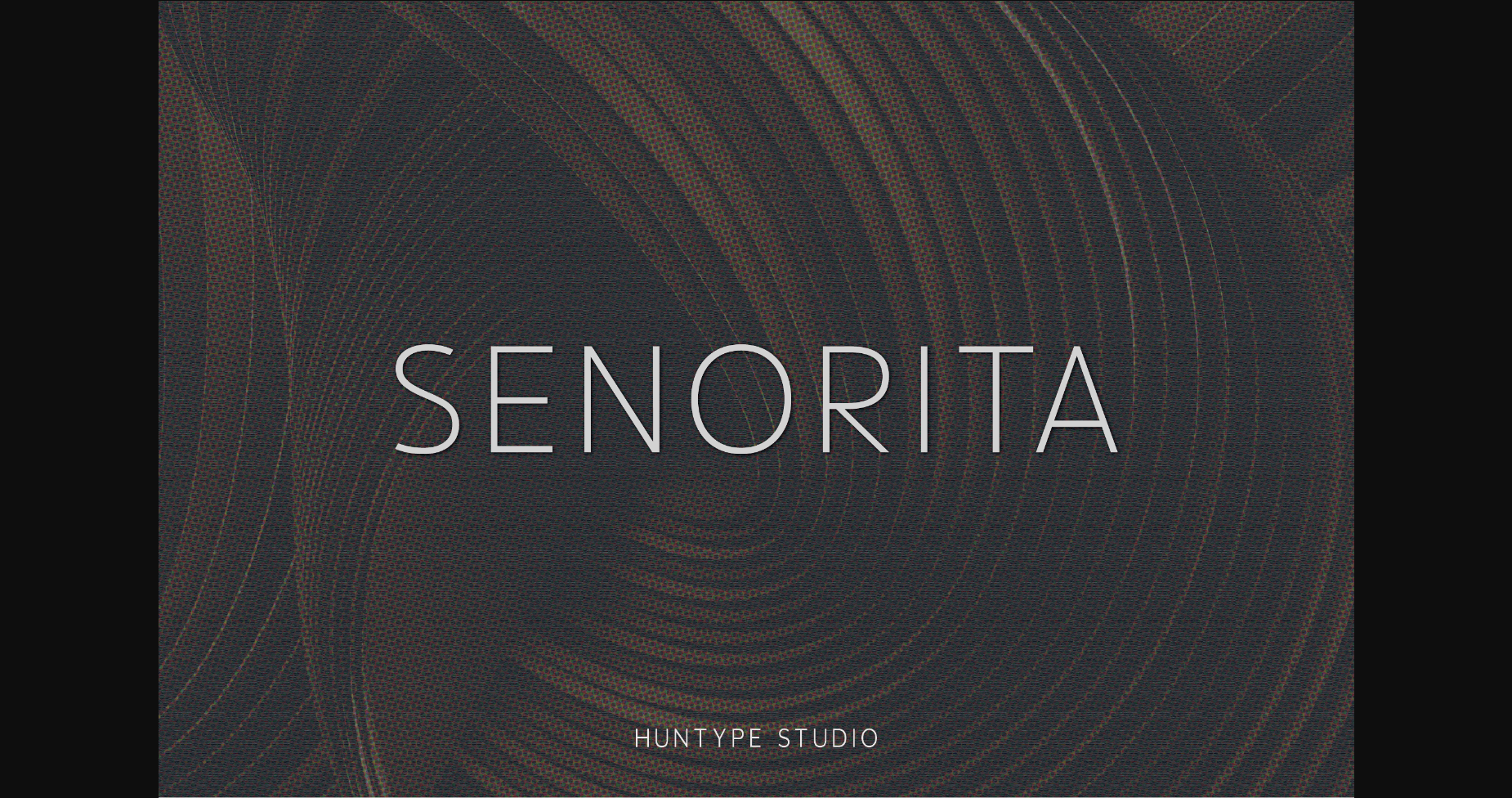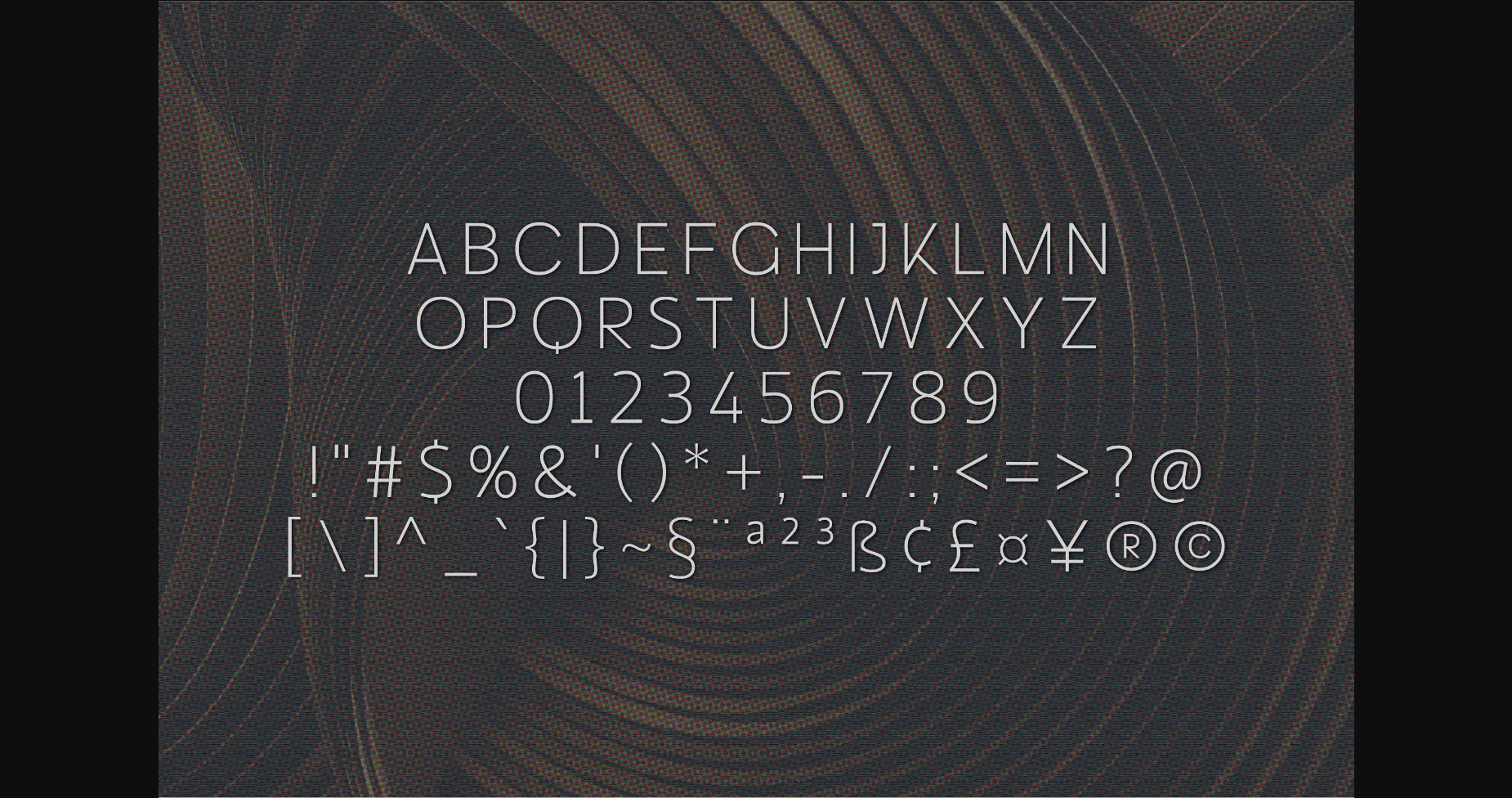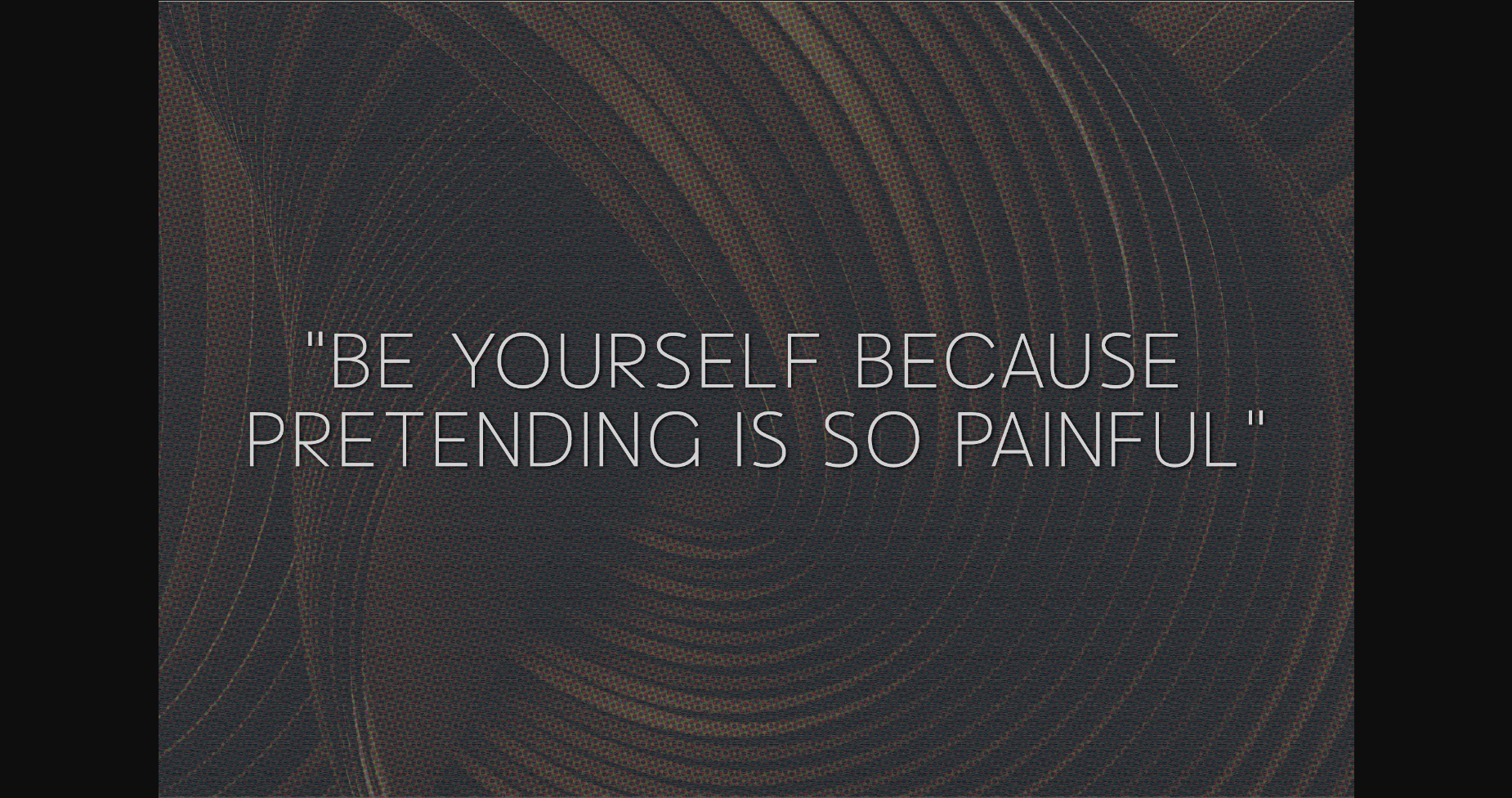
Senorita is an all-caps sans serif. It is versatile and looks great in just about any context. With smooth and clean lines and just a touch of contrast, Senorita works beautifully for logos, branding, and web headings.